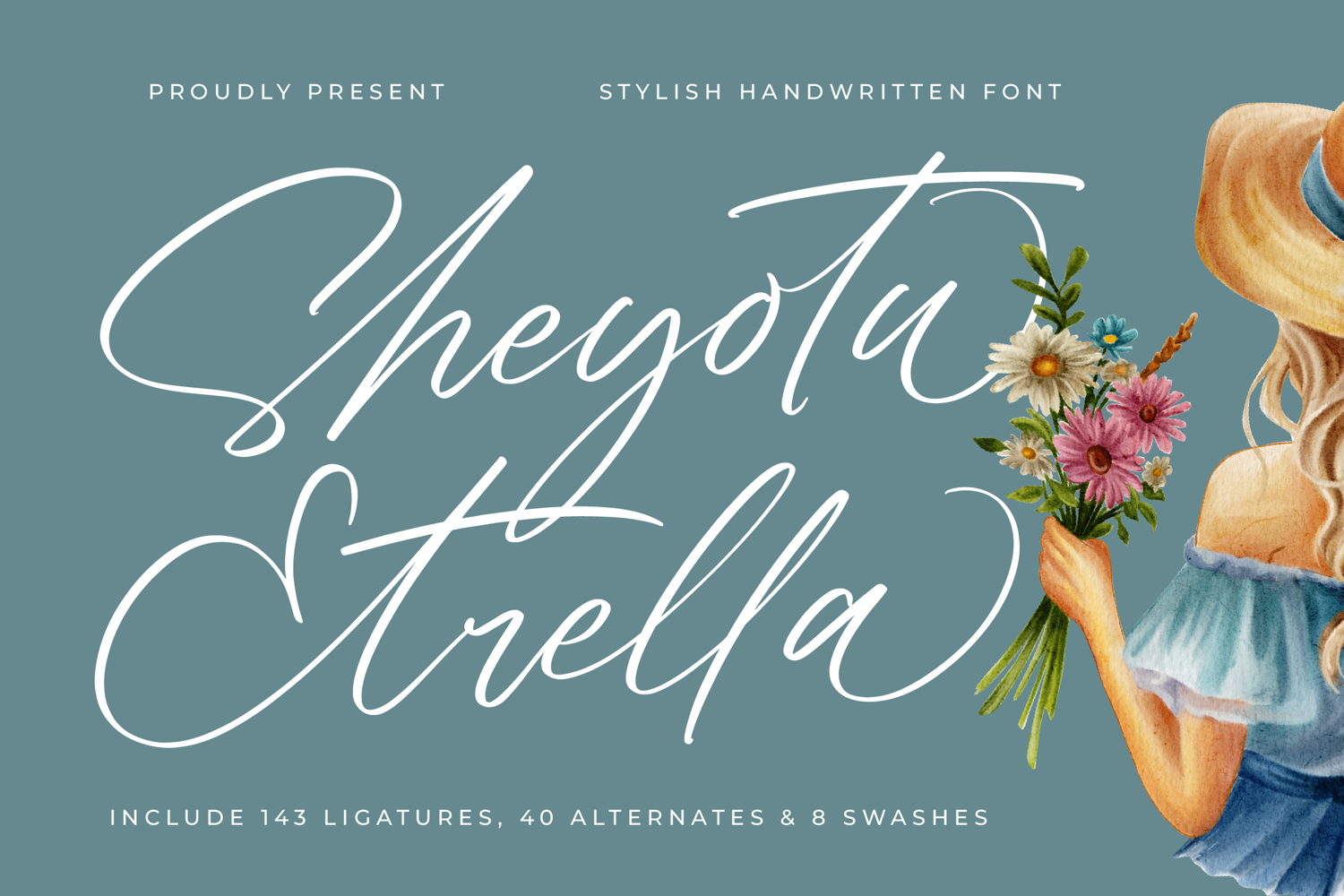
Sheyotu Etrella - Stylish Handwritten Font
Sheyotu Etrella
Sheyotu Etrella Italic
Sheyotu Etrella – Stylish Handwritten Script Font
Sheyotu Etrella is a stylish handwritten script font designed with smooth flowing strokes and elegant signature-style curves. Inspired by modern calligraphy and natural handwriting, the font delivers a graceful and expressive typography style suitable for contemporary design projects.
The letterforms feature long sweeping lines and delicate curves that create a refined handwritten rhythm. This elegant structure allows the typography to feel natural while maintaining a stylish and professional appearance.
Sheyotu Etrella includes a rich set of ligatures, alternate characters, and decorative swashes that give designers the flexibility to build unique lettering compositions. These features help create sophisticated headlines, beautiful logos, and expressive branding elements.
With its stylish handwritten aesthetic, Sheyotu Etrella works beautifully in projects that require elegance, softness, and artistic personality.